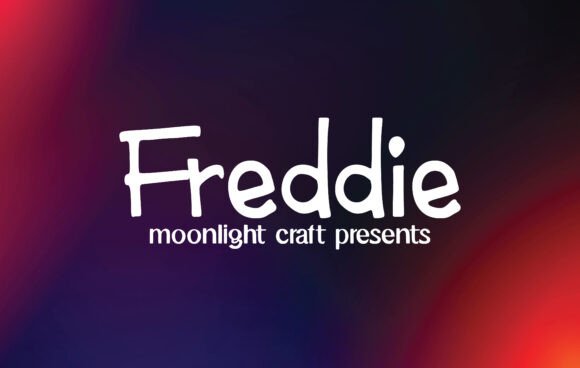
Introducing Freddie Font: Elevate Your Creative Projects with a Lovely Handwritten Style
Freddie is a stunning handwritten font that has the potential to take your creative ideas to new heights. With its unique and elegant style, Freddie Font is the perfect choice for designers, artists, and crafty individuals looking to add a personal touch to their projects. Whether you’re creating eye-catching logos, branding materials, or inspirational quotes, Freddie Font is sure to make your work stand out.
What Makes Freddie Font Special?
- Handwritten with love: Freddie Font is carefully crafted with a personal touch, giving it a warm and friendly feel.
- Unique and elegant style: The font’s distinctive style sets it apart from other handwritten fonts, making it perfect for creative projects.
- Versatile: Freddie Font can be used for a wide range of applications, from logos and branding to quotes and social media graphics.
- Easy to read: Despite its creative and artistic nature, Freddie Font remains highly legible, ensuring your message gets across clearly.
10 Inspiring Ways to Use Freddie Font
- Logo design: Create a memorable and impactful logo for your brand or business using Freddie Font.
- Branding materials: Use Freddie Font to develop a consistent visual identity across your branding materials, including business cards, brochures, and letterheads.
- Social media graphics: Add a personal touch to your social media posts and stories with Freddie Font.
- Inspirational quotes: Create motivational and shareable quote graphics using Freddie Font.
- Wedding and event invitations: Add a touch of elegance and sophistication to your wedding or event invitations with Freddie Font.
- Packaging design: Use Freddie Font to create eye-catching packaging designs that stand out on store shelves.
- Advertising and marketing materials: Incorporate Freddie Font into your advertising and marketing materials to add a creative and artistic flair.
- Web design: Use Freddie Font to create visually appealing and engaging web designs that reflect your brand’s personality.
- Stationery and greeting cards: Add a personal touch to your stationery and greeting cards with Freddie Font.
- Art and craft projects: Experiment with Freddie Font in your art and craft projects, such as scrapbooking, journaling, and mixed media.
Tips and Tricks for Using Freddie Font
- Experiment with colors and textures: Freddie Font looks great in a variety of colors and textures, so don’t be afraid to experiment and find the perfect combination for your project.
- Mix and match with other fonts: Combine Freddie Font with other fonts to create a unique and visually appealing typography.
- Pay attention to font size and spacing: Make sure to adjust font size and spacing to ensure your text is easy to read and visually appealing.
- Use Freddie Font consistently: Use Freddie Font consistently across your project to create a cohesive and professional look.
In conclusion, Freddie Font is a beautiful and versatile handwritten font that can elevate your creative projects to new heights. With its unique and elegant style, Freddie Font is perfect for designers, artists, and crafty individuals looking to add a personal touch to their work. Whether you’re creating logos, branding materials, or inspirational quotes, Freddie Font is sure to make your project stand out.